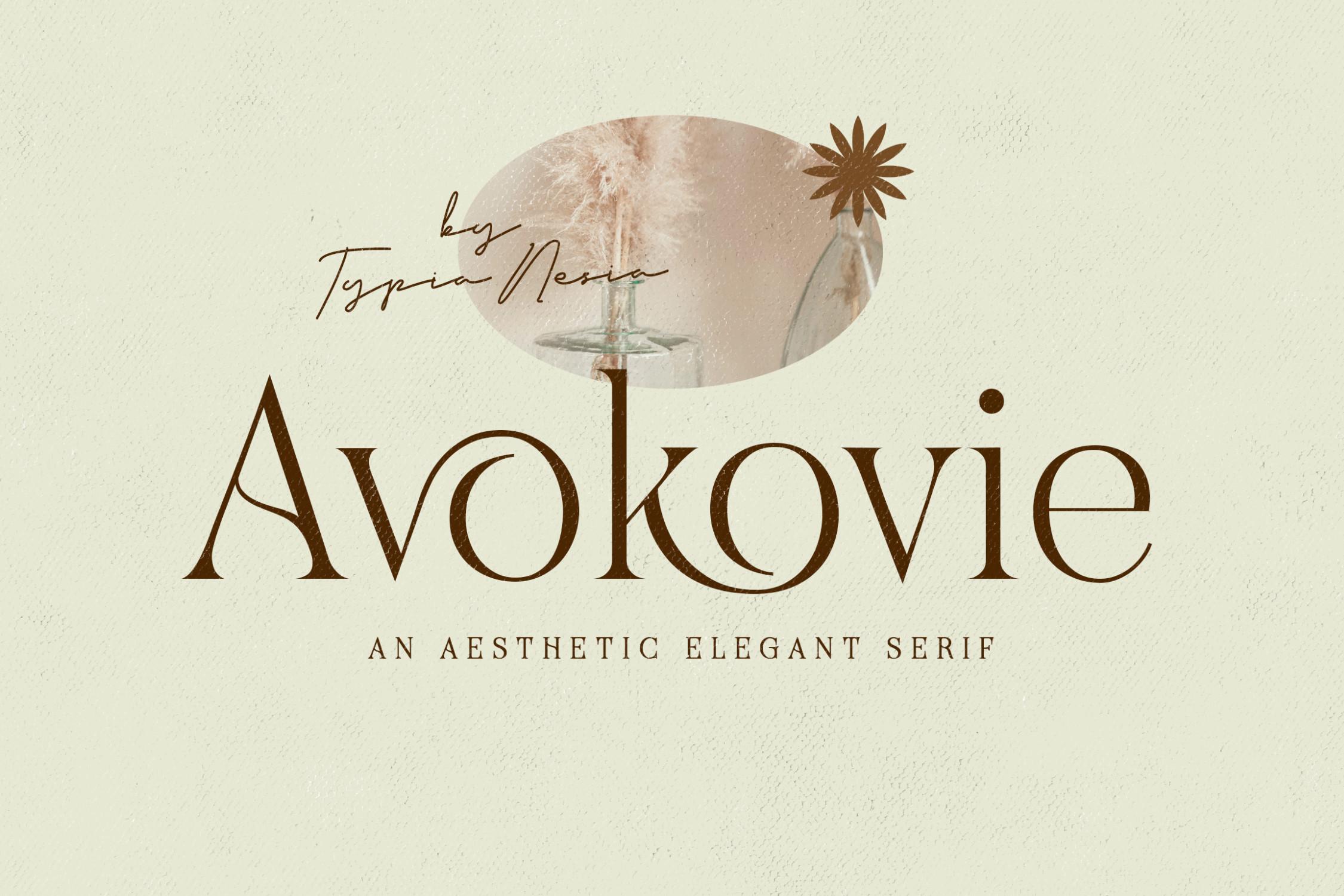
Avokovie Font Description
Avokovie is a beautiful and elegant serif font that comes with some ligatures, so you can combine it to make a perfect typography design. It is perfect for your upcoming projects. You can use it in luxury logos and branding, classy editorial design, woman magazines, cosmetic brands, fashion promotions, art gallery branding, museums, historical of architectural digest, boutique branding, stationery design, blog design, modern advertising design, card invitations, art quotes, home decor, book/cover titles, special events, and many more.